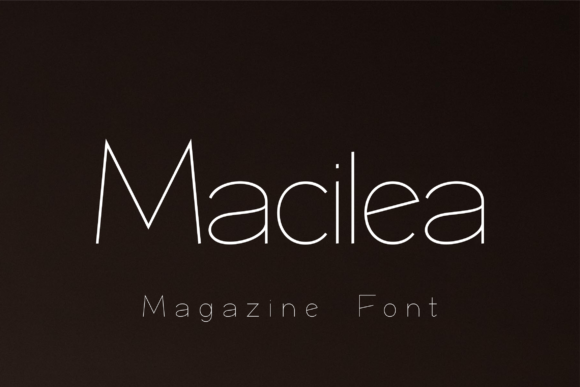
Step into the world of sophistication and elegance with Macilea, the sans serif font that's turning heads and capturing hearts in the world of design. Its clean lines, minimalist charm, and modern aesthetic make it the perfect choice for those seeking a font that exudes both style and functionality.
Immerse yourself in the creative possibilities that await you with Macilea. Its versatility knows no bounds, making it the ideal companion for a myriad of projects. From the covers of books that speak volumes to the pages of magazines that ignite imaginations, Macilea effortlessly elevates your designs, adding a touch of timeless elegance that resonates with your audience.
With Macilea, social media posts transform into captivating expressions of your brand's personality. Its clean lines and modern appeal ensure your messages shine, leaving a lasting impression on your followers. Invitations crafted with Macilea exude an air of sophistication, inviting guests to events that promise to be unforgettable.
Unleash your creativity with Macilea, the font that seamlessly blends form and function. Its minimalist nature complements any design, allowing your words and visuals to take center stage. Experience the joy of designing with a font that enhances your ideas, making them shine brighter than ever before.
Join the growing community of designers and creatives who have embraced Macilea as their font of choice. Let your designs speak volumes with a font that embodies elegance, modernity, and versatility. Discover the endless possibilities that await you with Macilea—the font that transforms your creative visions into stunning realities.